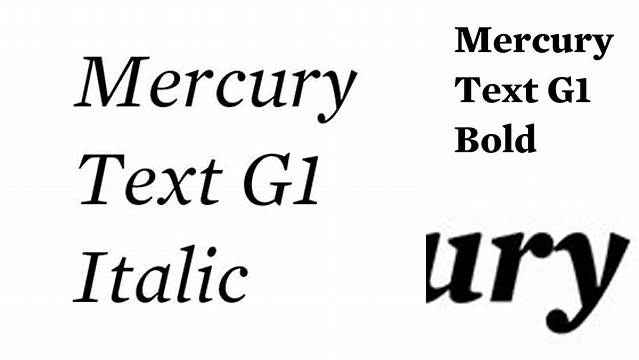
Hey guys! If you're on the hunt for a sleek, modern, and highly readable font, you've probably stumbled upon the Mercury Text Font Family. It's a popular choice, and for good reason. This article is your ultimate guide to everything Mercury Text, including how to free download this awesome font, its key features, and how to best use it in your projects. We'll dive deep, covering everything from its design characteristics to where it shines the brightest. Get ready to unlock the full potential of this versatile typeface!
What is the Mercury Text Font Family?
First things first, let's get acquainted! The Mercury Text Font Family is a contemporary serif typeface designed to be both elegant and highly legible. Created by Hoefler&Co., a renowned type foundry, Mercury Text is celebrated for its balance of classic design elements with a touch of modern flair. This font is built to perform, whether you're crafting long-form text for a book, designing a website, or creating print materials. Its carefully considered letterforms ensure that it remains readable at various sizes, making it a super versatile choice for a wide range of applications. Mercury Text isn't just about looks; it's about creating a great reading experience. The design focuses on clarity and visual appeal, allowing your content to grab the attention of your audience without straining their eyes. Its balanced proportions and subtle details make it suitable for both headlines and body text. The family includes a range of weights and styles, allowing for flexibility and customization to suit your unique needs. You can easily emphasize text or create visual hierarchy with different styles. The designers at Hoefler&Co. put a lot of thought into the details, ensuring that each character works harmoniously with the others. If you're looking for a font that blends sophistication with functionality, the Mercury Text Font Family is a top contender. The smooth curves and clean lines give a feeling of both stability and approachability. This makes it an excellent choice for a variety of project types. From the subtle variations in the weight of strokes to the carefully considered spacing, Mercury Text offers a premium reading experience. It is designed to improve readability, making your content more accessible and engaging. Mercury Text has a refined look that speaks volumes, making it a great asset for your design work. It’s a good choice for anyone who is serious about the visual aspect of their work. The family includes the basic weights of Regular, Italic, Bold, and Bold Italic. It usually expands to include Light and Black styles. These various weights ensure you can create a visual hierarchy, making the font very versatile for all your design needs. When using the font you will see that it adds a professional touch and creates a polished look for any project. You can download it and try it out. It might just be what you were looking for.
Key Features and Design Characteristics of Mercury Text
Let's dive into what makes Mercury Text such a standout choice! The font's design characteristics are what sets it apart. The font has smooth curves and precise letterforms. This creates a visually appealing and readable experience. Its classic serif design is modernized, resulting in a timeless yet contemporary aesthetic. The design is great for both print and digital projects. It enhances the readability of your content and makes your projects look more professional. You'll notice a focus on balance and harmony, where each character complements the others. This makes the font perfect for both body text and headlines. The details are important. This is where the designers' careful work becomes clear. The subtle details, like the carefully shaped serifs and consistent stroke weights, contribute to its overall elegance. These factors enhance its versatility and its aesthetic appeal, making the font a great asset. It ensures clarity, even at small sizes. This also makes it well-suited for long-form content. Mercury Text comes in various weights and styles. You'll get a good range of options for your design work. You can use the font to create visual hierarchy. This makes your content more interesting to read. Each font weight is meticulously crafted to maintain the same high level of readability and aesthetic appeal. From the delicate lines of the light weight to the strong presence of the bold, each style maintains the same character. The diverse range of weights gives you the ability to create eye-catching headlines or elegant body text. These features make it a useful tool for any designer. If you're working on a branding project, the variety of weights enables you to establish a consistent visual identity. From business cards to website layouts, the ability to adjust weight helps with maintaining a consistent brand aesthetic. For those involved in publishing, Mercury Text's legibility at various sizes is a huge advantage. It allows for text-heavy documents to be easily readable without compromising on style. Mercury Text is not just a font; it's a comprehensive typography solution. It's easy to see why it's loved by designers around the world.
Best Uses for the Mercury Text Font Family
Okay, so where does Mercury Text really shine? This font is incredibly versatile, but here are some of its best applications: This font is excellent for long-form reading like books, magazines, and articles. The balanced letterforms and high readability make it perfect for this. It's also great for website design, where clear typography is crucial. The font maintains readability across different screen sizes. This gives a professional and clean look. In branding and marketing, Mercury Text can be used in a variety of ways. The different weights and styles offer versatility. From the logo and headlines to the body text, Mercury Text can help create a consistent brand image. Mercury Text is a great choice for print design such as brochures, posters, and stationery. Its elegant look makes it appealing and suitable for all project types. For academic papers and reports, its clean design ensures readability. The various weights allow you to emphasize key points. For those in the publishing industry, it is very versatile. It works well in both digital and print formats. Mercury Text is the go-to font for creating content. If you are working on a project with a lot of text, using this font can provide a pleasant reading experience. In corporate communications, this font is a great choice. The professional and refined look helps to convey a sense of trust. From annual reports to internal memos, Mercury Text can help enhance all communication. The flexibility in the font family is a big advantage. This allows designers to adapt it to different project needs. The multiple weights and styles mean it can work for almost any project. This makes Mercury Text a great choice for a wide array of design tasks.
Tips for Using Mercury Text Effectively
Want to make the most of the Mercury Text Font Family? Here are some tips to keep in mind: Experiment with different weights and styles. This will help you find the right look for your project. Don't be afraid to try out different combinations. Pay attention to the size and leading. This is especially important for readability. Make sure your text is easily readable. Adjust the spacing and line height to suit your content. Combine Mercury Text with other fonts to create visual interest. Pair it with a sans-serif font for headlines. Or use it for the body text for the best results. Use the font consistently throughout your design. This helps maintain a cohesive look. It's important to use it throughout the design. Always consider the context of your project. Choose the font size and style that will be most effective for your intended audience. The font is best used for long-form texts and detailed documents. This is due to the design and legibility. If your project is a long document, the font will work wonders. To maximize its impact, think about how the font integrates with the overall design. Mercury Text can greatly enhance your design work, so be sure to use the font to its fullest potential. By using the font correctly, you can make your content more appealing and easily readable. Mercury Text helps you enhance the quality of your design and make your projects look great. By using these tips, you'll get the most out of the Mercury Text Font Family.
Conclusion: Why Mercury Text is a Top Choice
In conclusion, the Mercury Text Font Family is a powerful tool for any designer. Its clean design, versatility, and readability make it a great choice for a wide array of projects. Whether you're designing a book, a website, or a brochure, this font can help you create a professional and visually appealing result. While finding a free download requires care, the investment in a licensed version is worthwhile for its aesthetic and functional benefits. Mercury Text provides a great balance of form and function, making it a great choice for any project. Remember to always respect licensing agreements and use fonts responsibly. Happy designing, everyone! This font is an excellent choice for anyone who values readability and style. The font offers a great reading experience for everyone. Consider the Mercury Text Font Family. The font will improve the look and feel of your project.